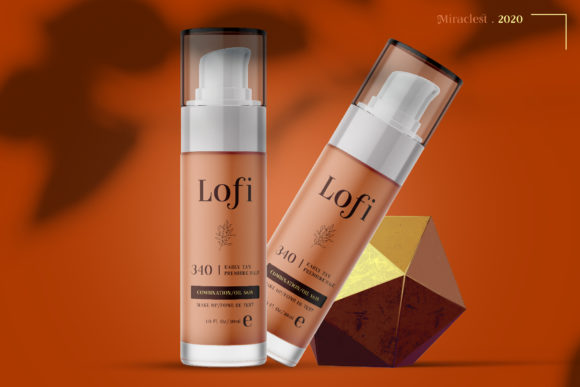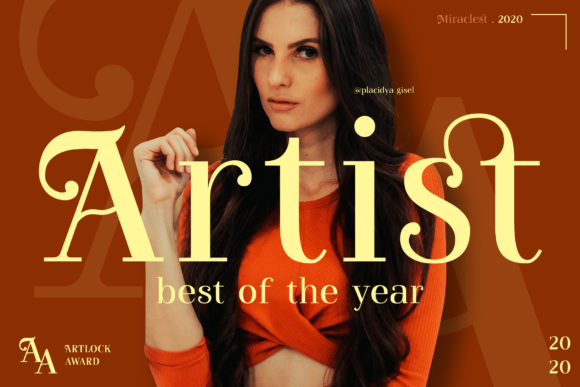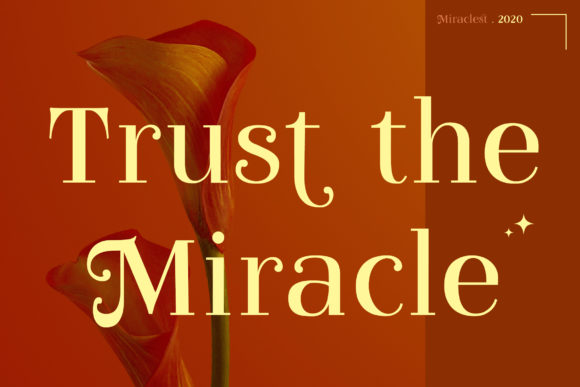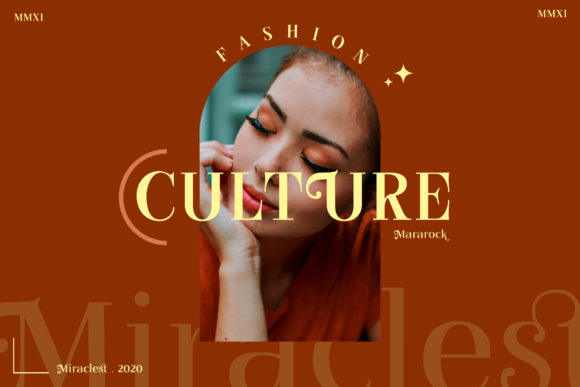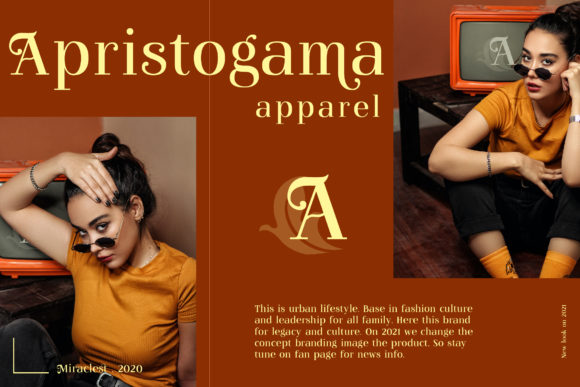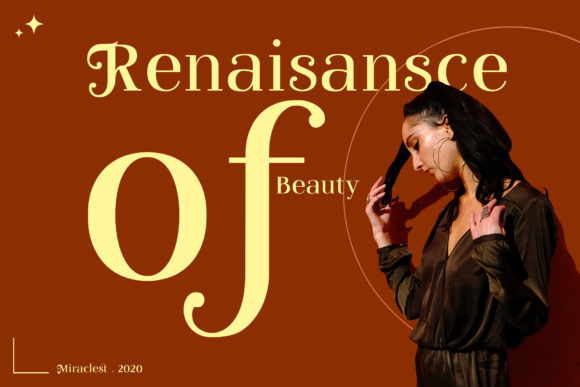
Introduction to Miraclest Font Font
Fonts play a crucial role in design, and the Miraclest Font font is a typeface that brings both character and versatility to any project. Whether you’re working on a branding project, a website, or a print design, the Miraclest Font font offers a unique style that can elevate your work.
Miraclest is a beautiful and distinct serif font.
Classy and unique, this font will most certainly make your designs stand out Add it confidently to your projects, and you wonβt be disappointed.
Key Features of Miraclest Font Font
Why Choose Miraclest Font Font?
The Miraclest Font font is more than just a typeface β it’s a design tool that helps you communicate your message with style and clarity. Its unique character set and versatile design make it suitable for a wide range of applications, from elegant invitations to bold headlines.
With its carefully crafted letterforms and balanced proportions, the Miraclest Font font ensures readability and visual appeal across all mediums.
What makes Miraclest Font font special?
The Miraclest Font font stands out with its unique design, exceptional readability, and versatility across various design applications.